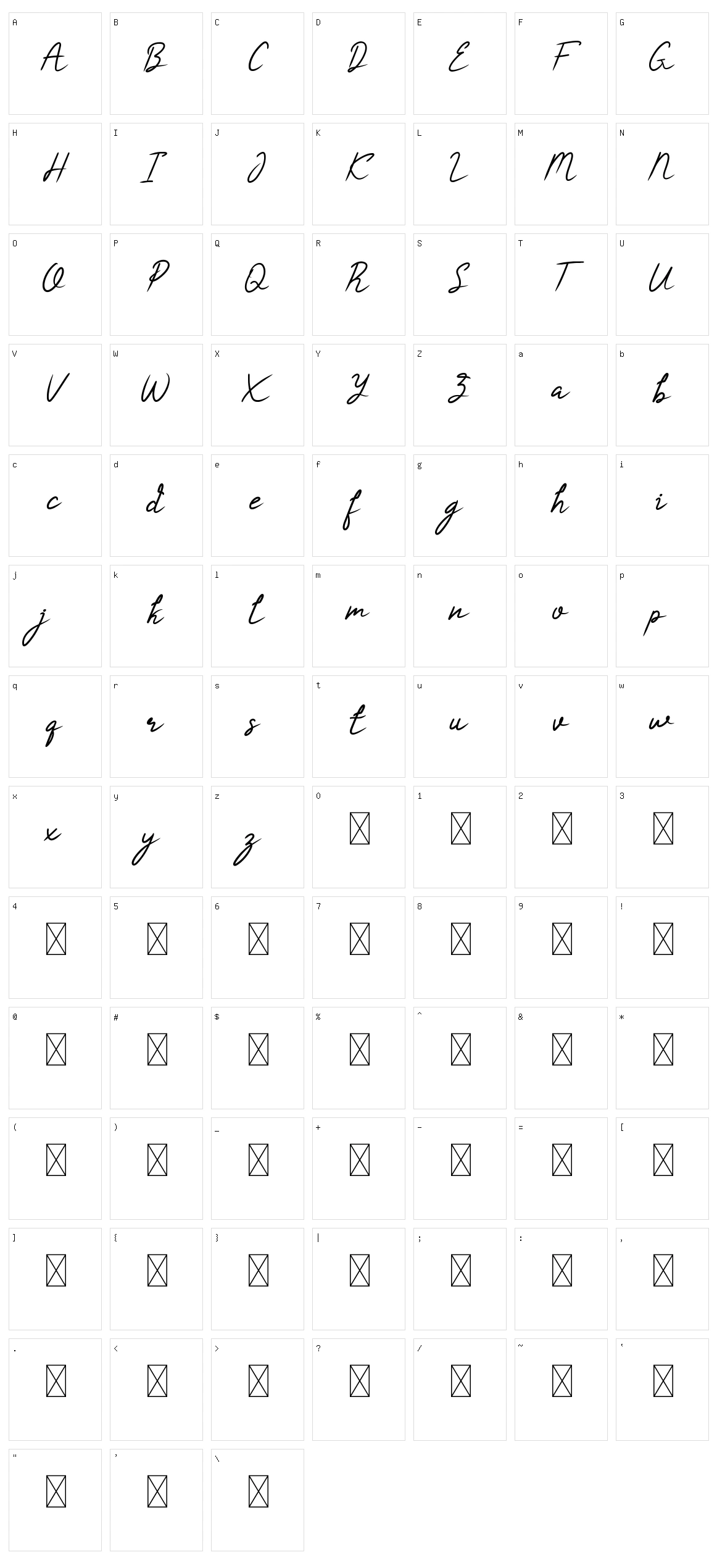
The free font Charlyn Rushmoor is carefully designed by Edric Studio, showcasing a thoughtful balance of creativity and usability and falls under the Script font style. When you download the ZIP file, it contains only 20.3 KB of font files, making it lightweight and quick to download. Please review the license details below to understand permitted usage and distribution rights. If license information is not available, we recommend using this font for personal projects only or contacting the author directly for commercial usage permissions.